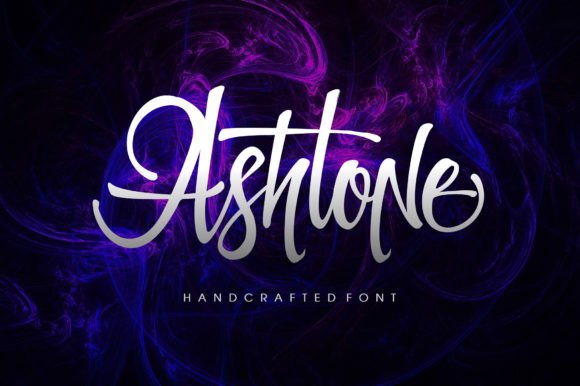
Behold Ashtone Font, a Work of Art for Your Packaging Designs
Ashtone Font, a handwritten masterpiece from Rvq Type Foundry, is the epitome of elegance. Its captivating strokes dance across your designs, leaving a trail of sophistication and charm. Get ready to transform your packaging into a symphony of visual delight!
Unleash the Power of Ashtone for Unforgettable Packaging
With Ashtone Font as your secret weapon, your packaging will become a true masterpiece, exuding a personality that captivates and enchants. Let your products speak volumes, even before they're opened, with designs that ignite curiosity and leave a lasting impression.
Create a Multitude of Designs with Ashtone, the Versatile Star
Ashtone Font is the ultimate chameleon, seamlessly adapting to a myriad of design styles. From chic logos that command attention to elegant cards that whisper your brand's story, Ashtone delivers versatility like no other. Let your creativity run wild as you craft designs that resonate with your audience and establish an unforgettable brand identity.
Ashtone Font, a Timeless Treasure for Your Brand's Journey
Timeless and enduring, Ashtone Font transcends fleeting trends, ensuring your designs remain relevant and captivating for years to come. Invest in a font that will accompany your brand through its evolution, adapting seamlessly to changing tastes and preferences. Ashtone is the cornerstone of a timeless brand identity, standing as a testament to your commitment to excellence.
Step into a World of Elegance with Ashtone Font
Ashtone Font opens the door to a world of sophistication, where every design becomes a visual masterpiece. Embrace the power of this exquisite font and watch as your packaging designs blossom into works of art. Let Ashtone be your guide as you create designs that captivate, inspire, and leave an indelible mark on your customers' minds.